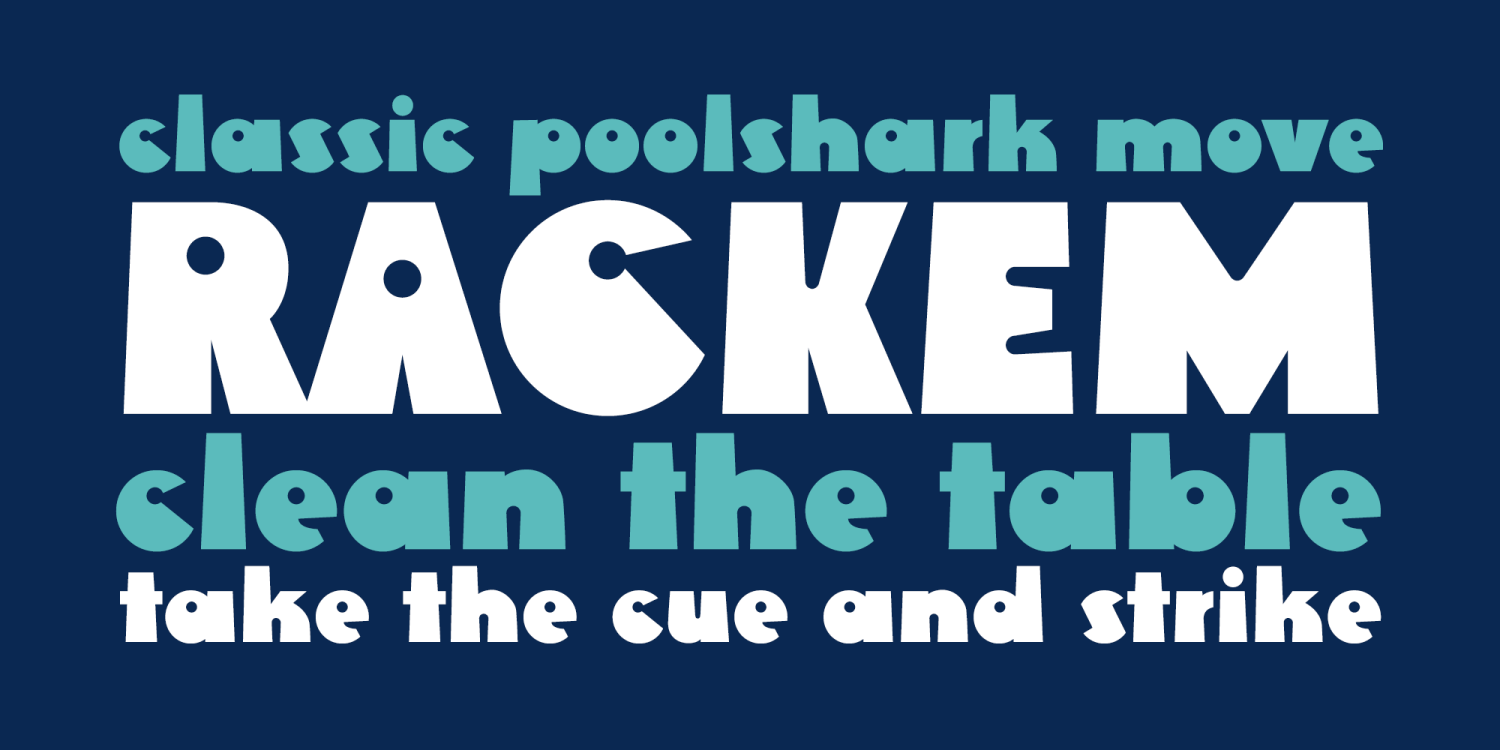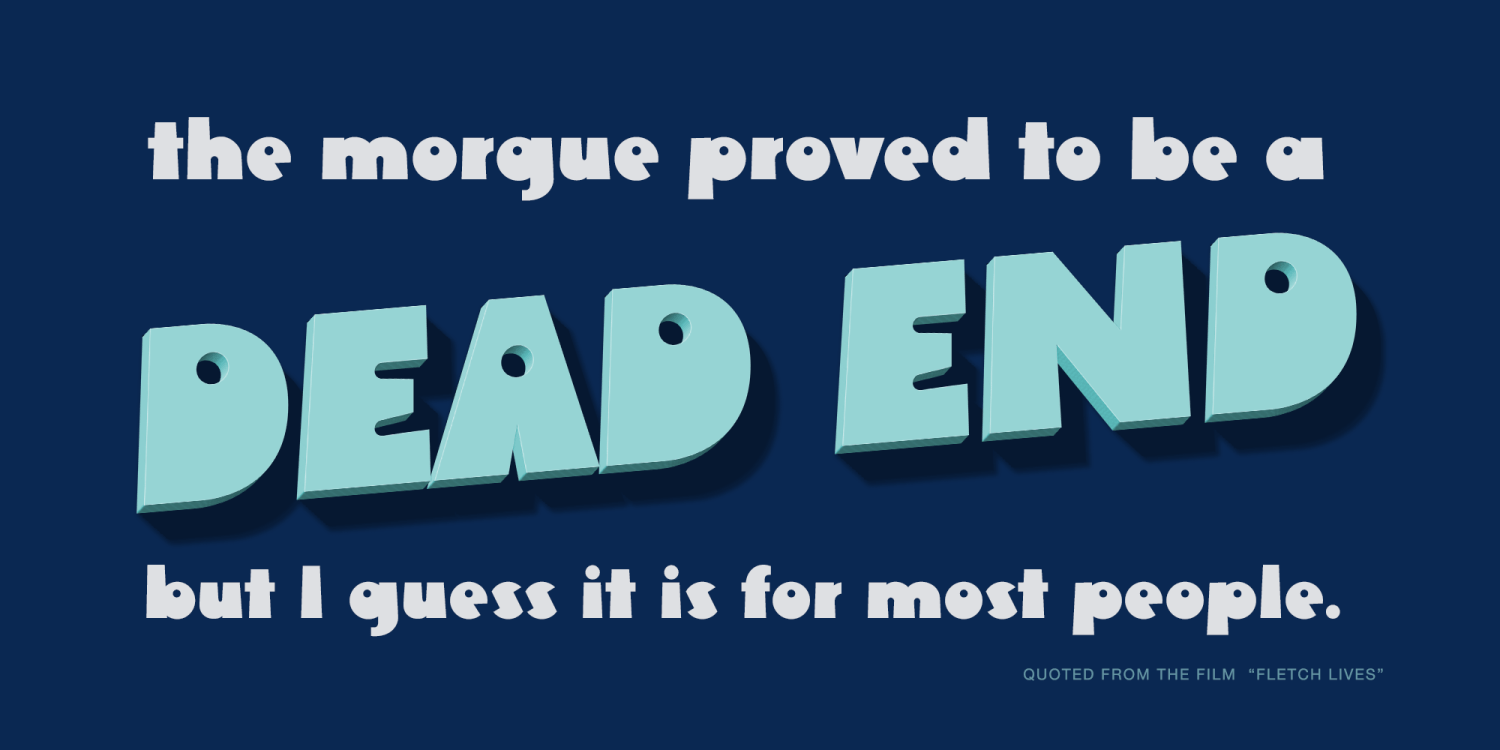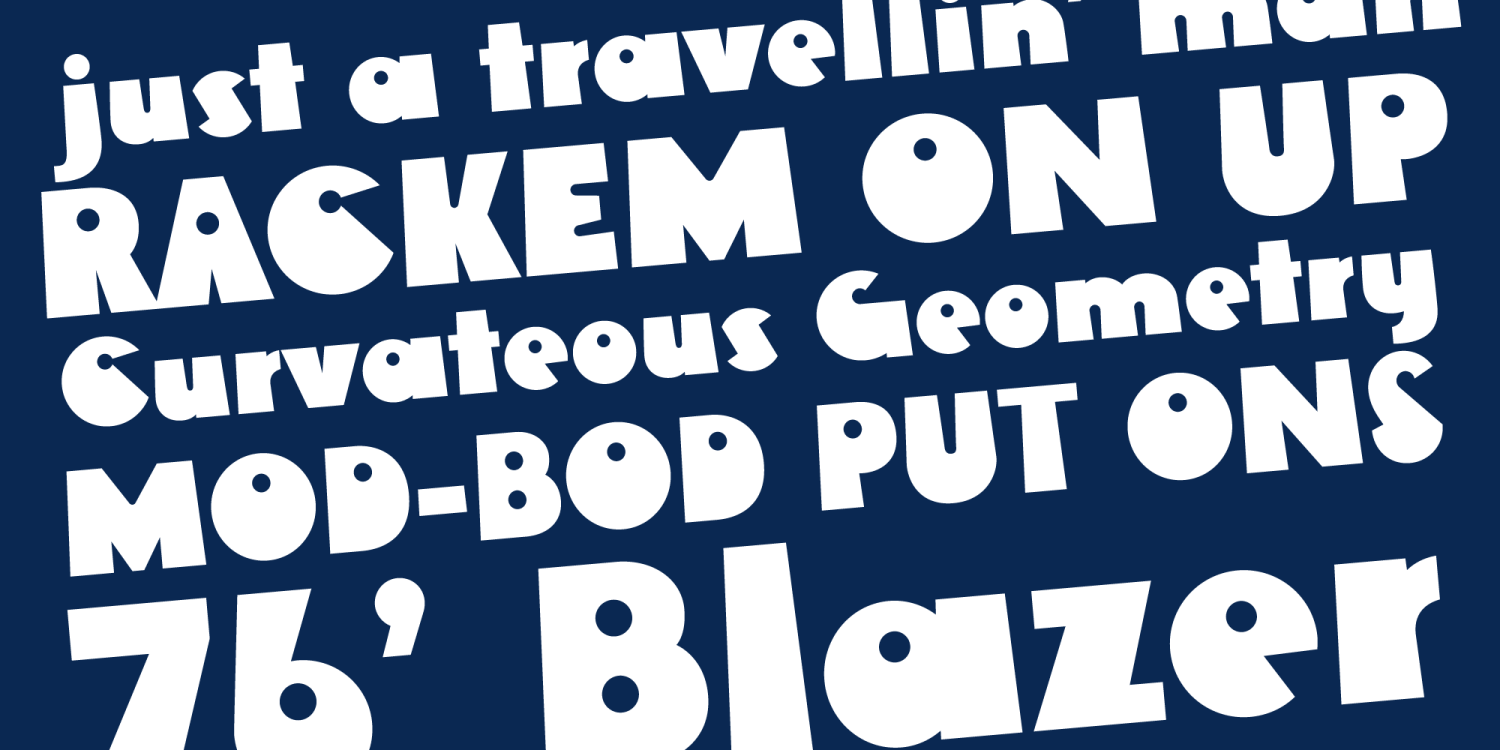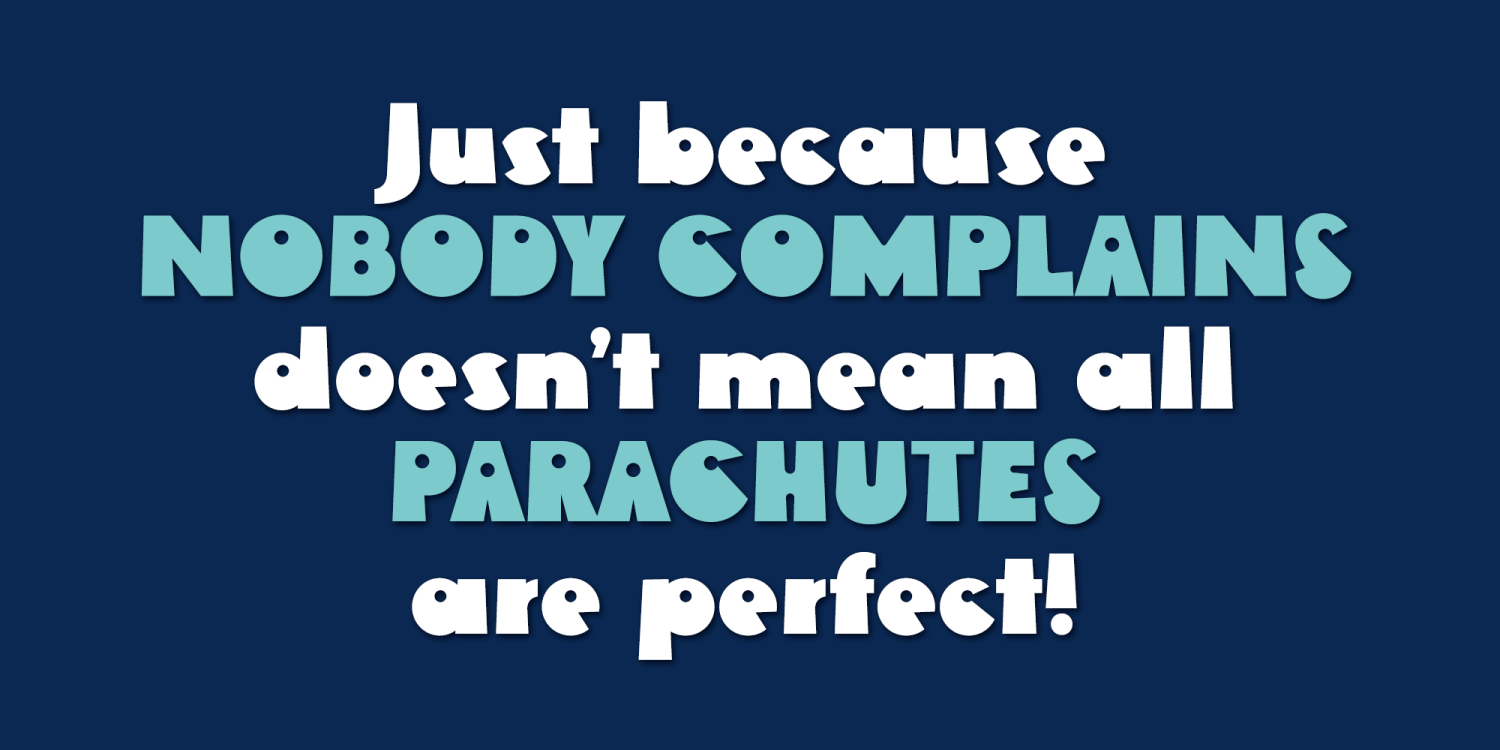
Rackem PB
Font Family by Pink Broccoli
Rackem PB started as a digitization of a film typeface known as "Eightball" by LetterGraphics, not to be confused with Eightball that was released by other film type companies of a totally different look. This crazy typestyle had all the flavor it needed to make regular appearances in 70's sticker body modification ads for Chevrolet cars and trucks side panels.
Loaded with hooptie appeal, it's something you really need to take for a ride to appreciate its novelty.